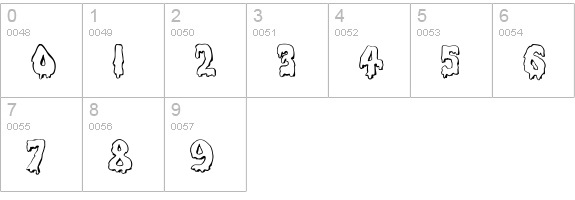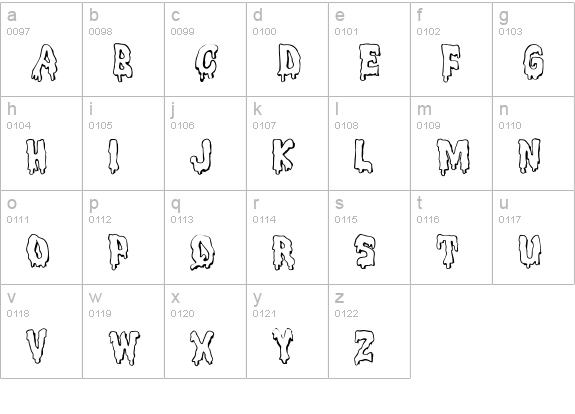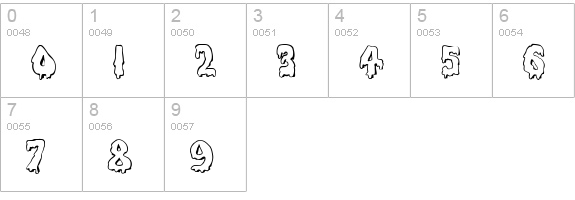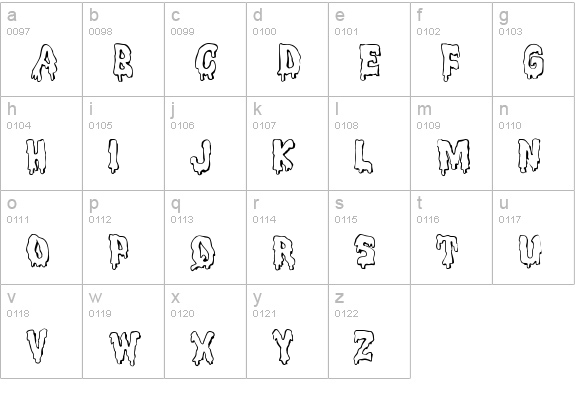
MeltdownMF Font Details
Introducing the captivating and dynamic MeltdownMF font, a stunning display typeface that exudes an enticing blend of modernity and edginess. This font is a true testament to the power of creativity and individuality, with its unique design elements that break free from the conventional norms. MeltdownMF font boasts an impressive array of letterforms that are beautifully crafted, each possessing a distinct personality that adds depth and character to any design project. Its bold strokes and dramatic curves encompass a sense of energy and movement, making it perfect for attention-grabbing headlines, logos, posters, and more. One of the most remarkable features of MeltdownMF font is its versatility. Whether you're aiming for a sleek and contemporary look or a bold and rebellious aesthetic, this font effortlessly adapts to any style or concept. Its versatility extends to various design applications, making it an ideal choice for branding, advertising, social media graphics, and beyond. What sets MeltdownMF font apart from the rest is its accessibility. As a free font, it offers a treasure trove of creative possibilities to designers, artists, and anyone seeking to elevate their visual content. You can easily download this font for free at FontsMarket.com, a trusted online platform that provides a vast collection of high-quality fonts. In conclusion, MeltdownMF font is a captivating and versatile typeface that captures attention and adds a touch of personality to any project. With its stunning design and the added benefit of being freely available to download at FontsMarket.com, this font is a must-have tool for those seeking to make a bold statement and leave a lasting impression.